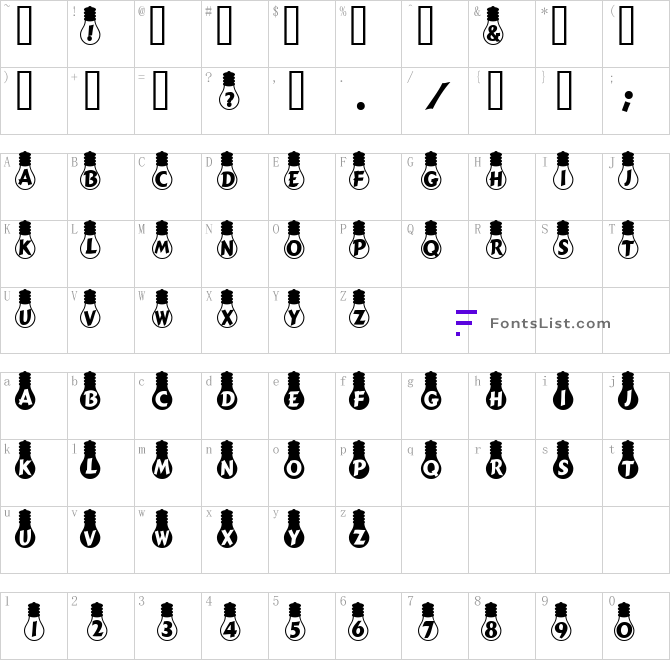
- Font Name:Ampoule
Ampoule-Heavy.ttf is a very beautiful artistic font, Ampoule-Heavy.ttf is widely used in the design and printing of various books and pictures,Ampoule-Heavy.ttf has a strong visual impact,Ampoule-Heavy.ttf is a commonly used font in newspapers, magazines and books, and is used in posters, e-commerce Poster design, store design, logo design, font design and other fields.Ampoule-Heavy.